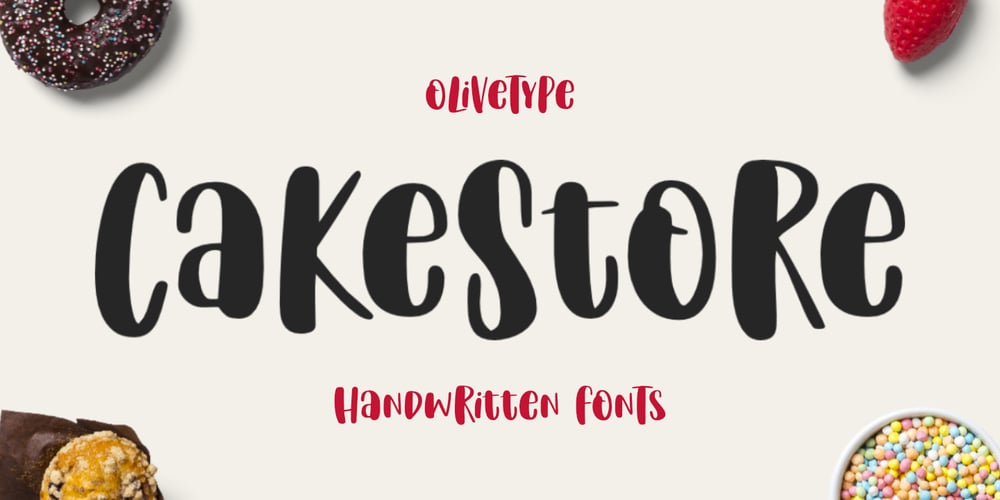
Cake Store
Cake Store font
Cake Store Font Family was designed by Nurul Hidayani and published by Olivetype. Cake Store contains 1 styles and family package options. Cake Store is a fun handwritten font, carefully handcrafted to become a true favorite. Its casual charm makes it appear wonderfully down-to-earth, readable, and ultimately, incredibly versatile.You will get : Cake Store OTF Basic Latin A-Z, a-z, numbers, symbols, and punctuations. Accented Characters : ßÀÁÂÃÄÅÆÇÈÉÊËÌÍÎÏÑÒÓÔÕÖØŒŠÙÚÛÜŸÝŽàáâãäåæçèéêëìíîïñòóôõöøœšùúûüýÿž Thank you